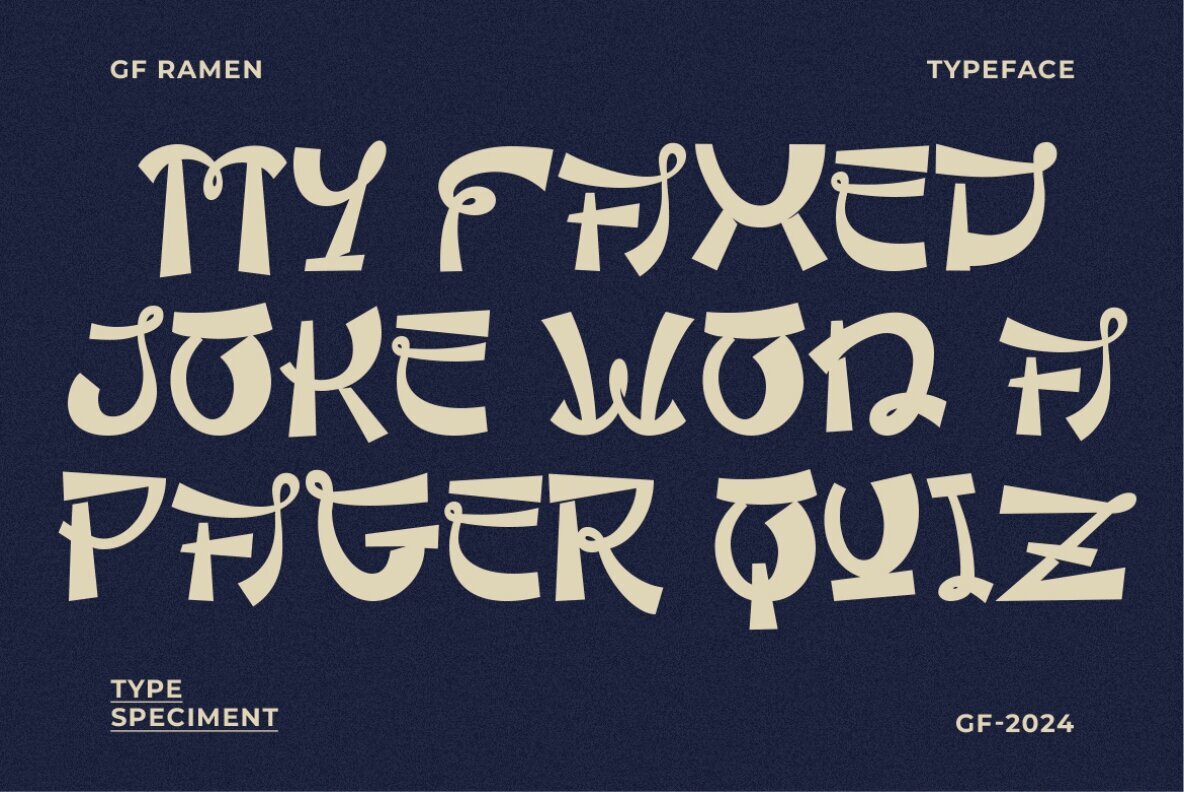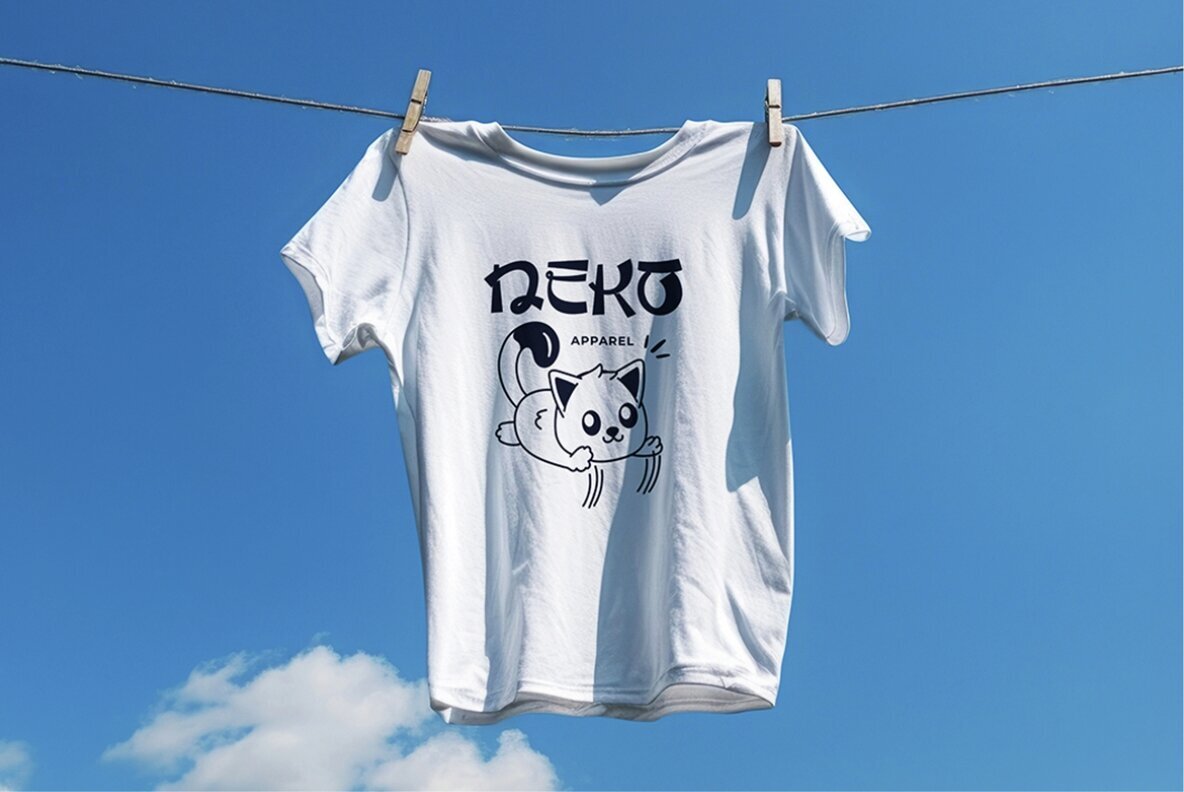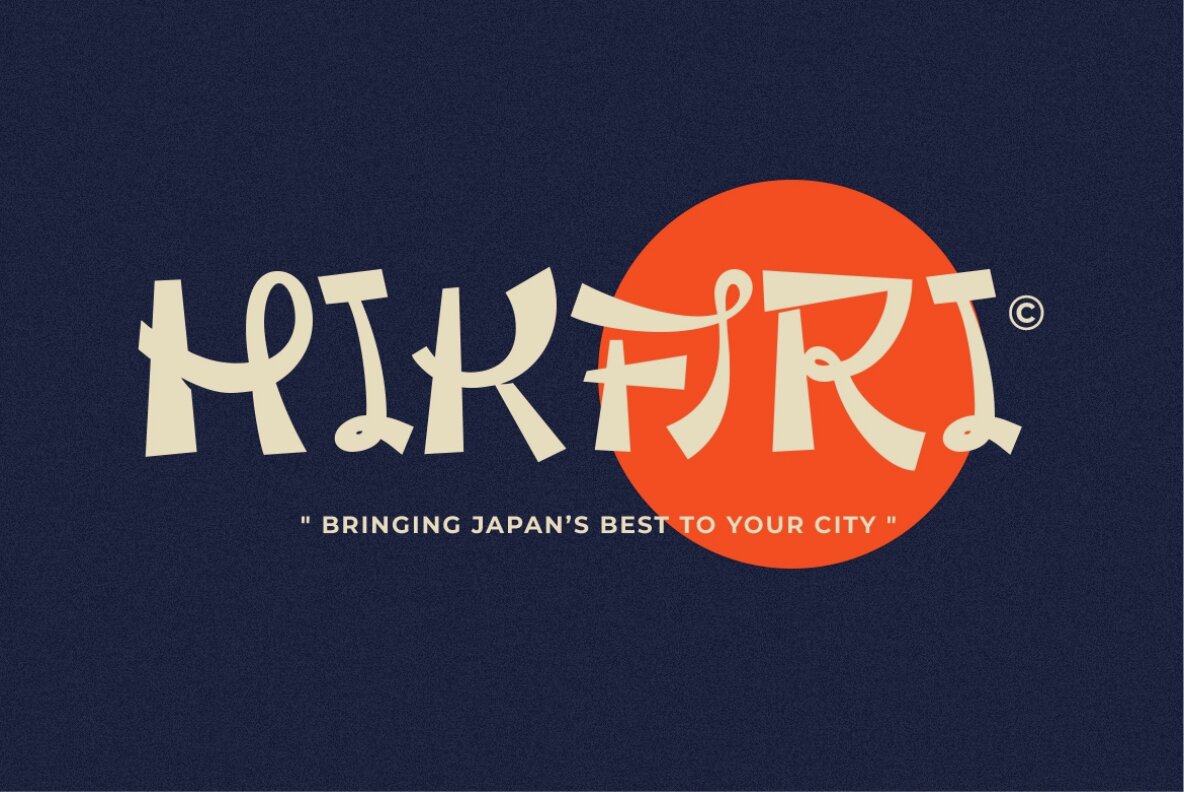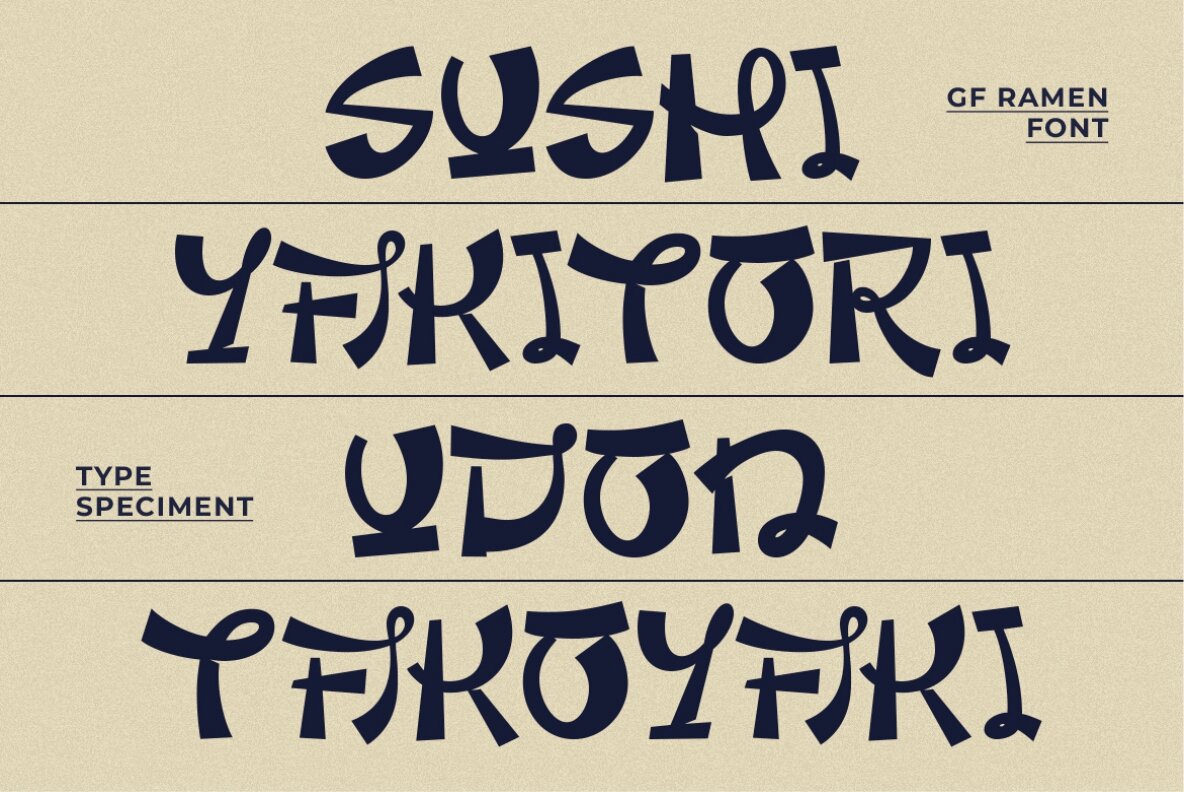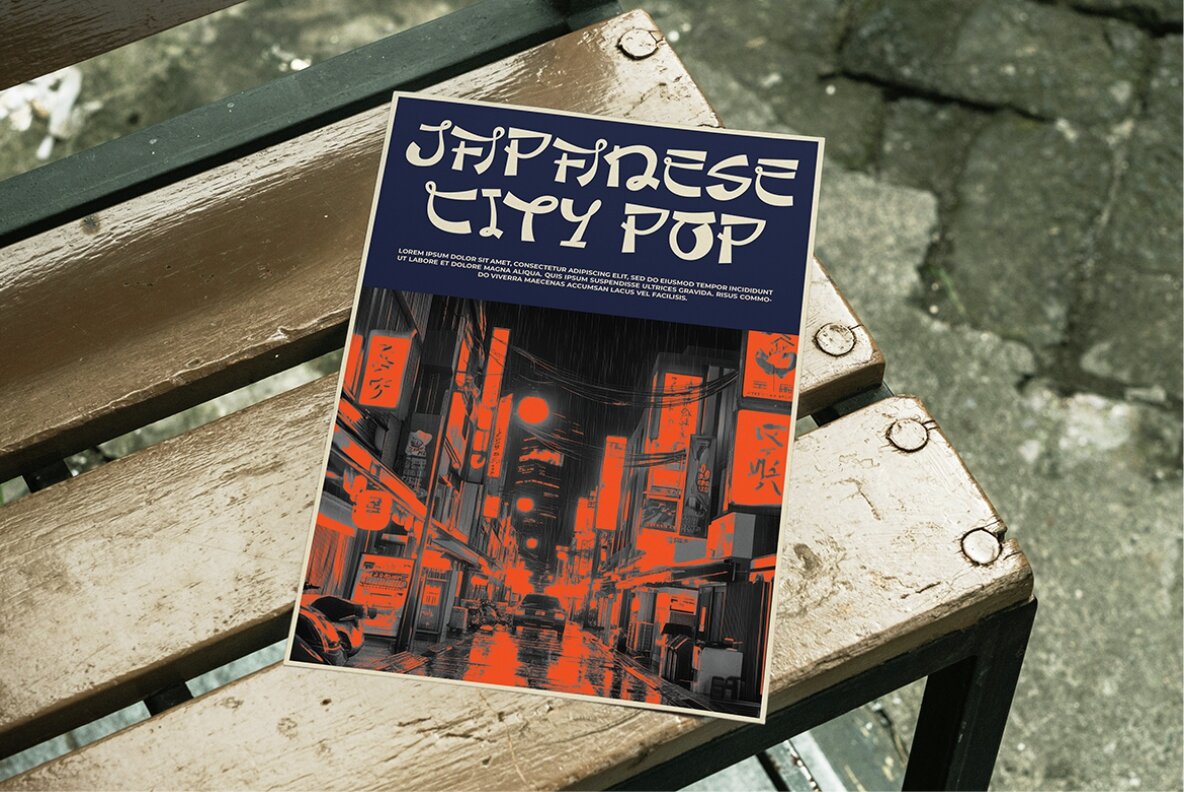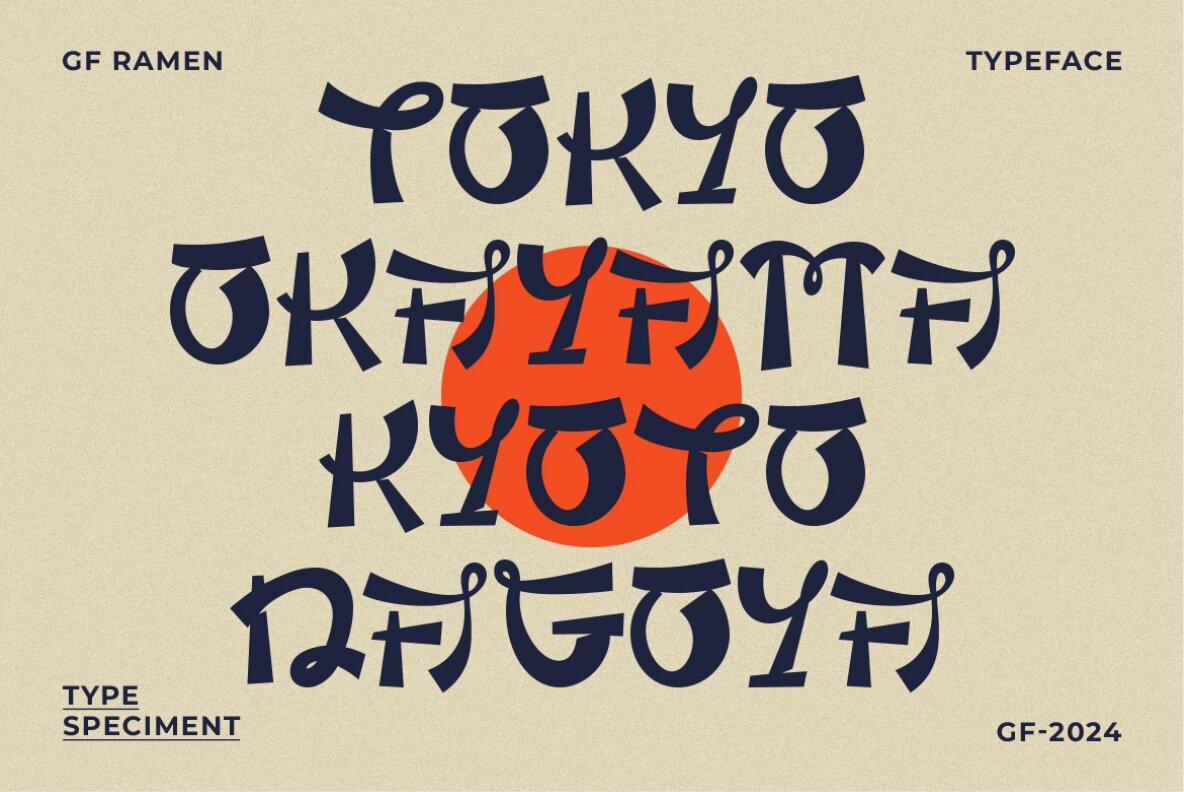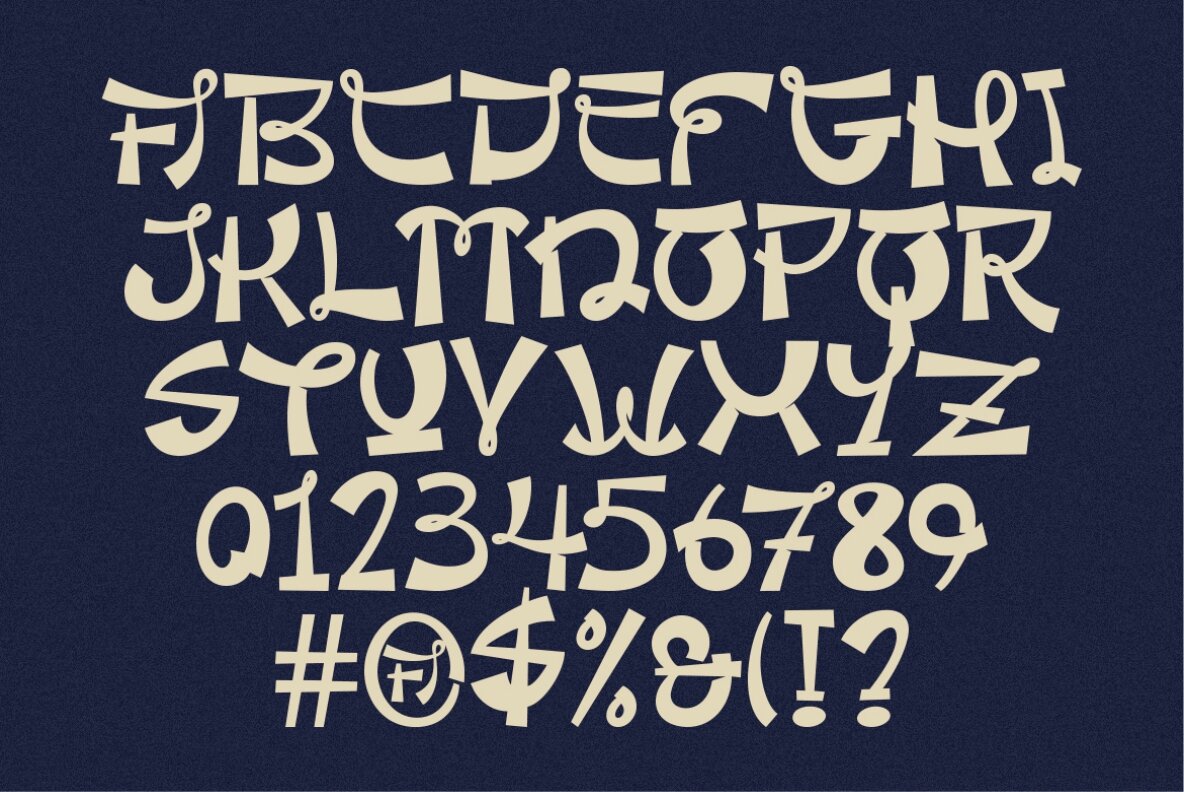
Groovy Ramen Font
Groovy Ramen
Groovy Ramen is a decorative display font inspired by Japanese writing, offering bold and modern design elements. It captures the essence of Japanese aesthetics while adding a contemporary and stylized twist. With its bold strokes and intricate details, Groovy Ramen makes a visually striking impression, ideal for eye-catching headlines, posters, and branding materials.
This font features a unique fusion of traditional Japanese influences with a modern sensibility, providing a dynamic character to any design. It is perfect for projects that aim to blend cultural references with a fresh and innovative approach, ensuring your work stands out with a touch of artistic flair.